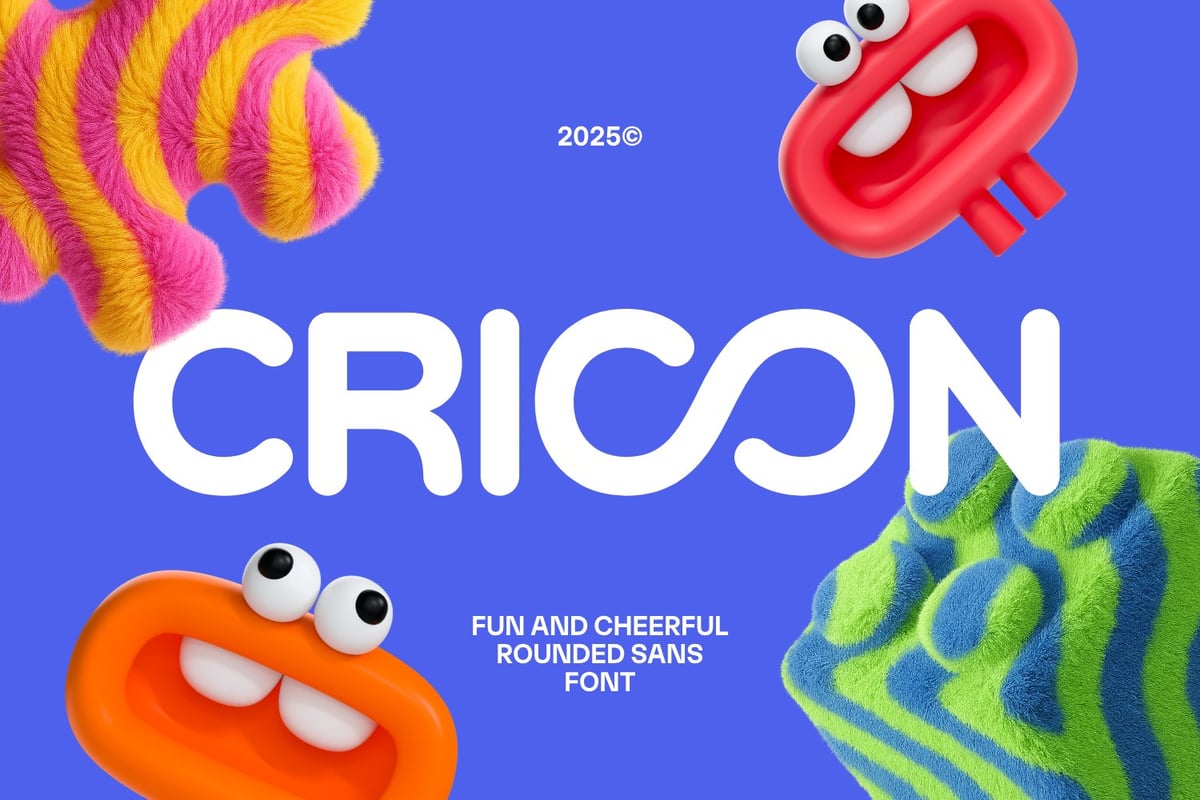
Cricon - Rounded Font
Create eye-catching designs with Cricon's bold rounded curves and friendly modern appeal. This display font features soft, blobby curves that bring a fun and approachable personality to any project. With its smooth rounded shapes, clean geometry, and strong presence, Cricon makes your text instantly more engaging while maintaining excellent readability. Perfect for a wide range of creative applications: Logos and branding projects Posters and headlines Social media graphics Kids content and educ...